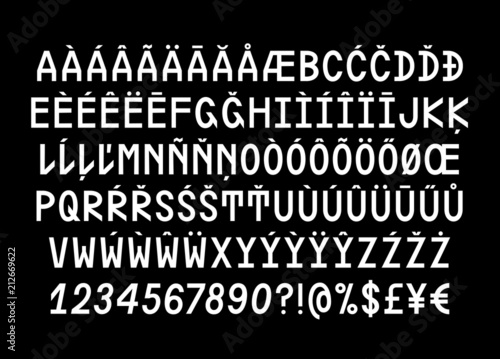
Monospaced fancy weird sans serif playful font, uppercase letters, symbols, numerals and punctuation, display typeface with two styles for posters, prints, invitations, identity design, children books